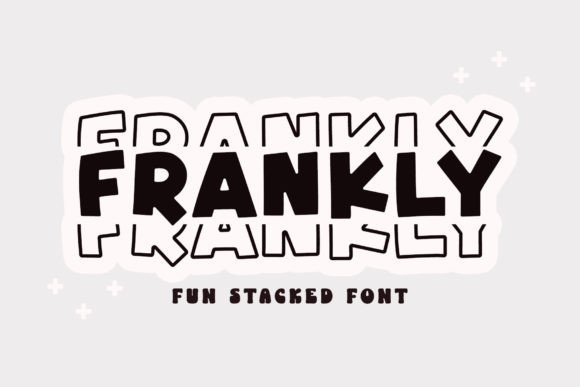
Introducing Frankly Font, the ultimate display font designed by airotype. With its bold and cute style, this all caps stacked font is a must-have for anyone looking to add a touch of creativity to their designs. Whether you're working on a poster, t-shirt quote, mug, sticker, or sublimation project, Frankly Font is the perfect choice to make your artwork stand out.
One of the standout features of Frankly Font is its versatility. Being a display font, it provides a unique and eye-catching appearance that effortlessly grabs attention. The solid stacked uppercase letters create a strong and impactful impression, while the outline stacked lowercase letters add a touch of elegance and sophistication. This dynamic combination allows you to experiment with different design elements and create stunning compositions that leave a lasting impression.
Crafting enthusiasts will appreciate the endless possibilities that Frankly Font offers. Its bold and playful style adds a touch of personality to any project, making it ideal for creating captivating quotes, catchy slogans, or engaging headlines. Whether you're designing a motivational poster, a trendy t-shirt, or a quirky mug, Frankly Font will help you communicate your message with style and flair.
But Frankly Font is not just about looks. It's also designed with functionality in mind. The carefully crafted letterforms ensure legibility even at smaller sizes, making it suitable for various applications. Whether you're printing it on a tiny sticker or using it for a large-scale banner, Frankly Font retains its charm and readability, ensuring that your message is conveyed effectively.
When you choose Frankly Font, you're not just getting a font – you're getting a tool to elevate your designs and captivate your audience. Its bold and cute style evokes emotions of joy, excitement, and curiosity, grabbing attention and leaving a lasting impression. With Frankly Font, your creations will shine and stand out from the crowd, making a statement that resonates with your target audience.